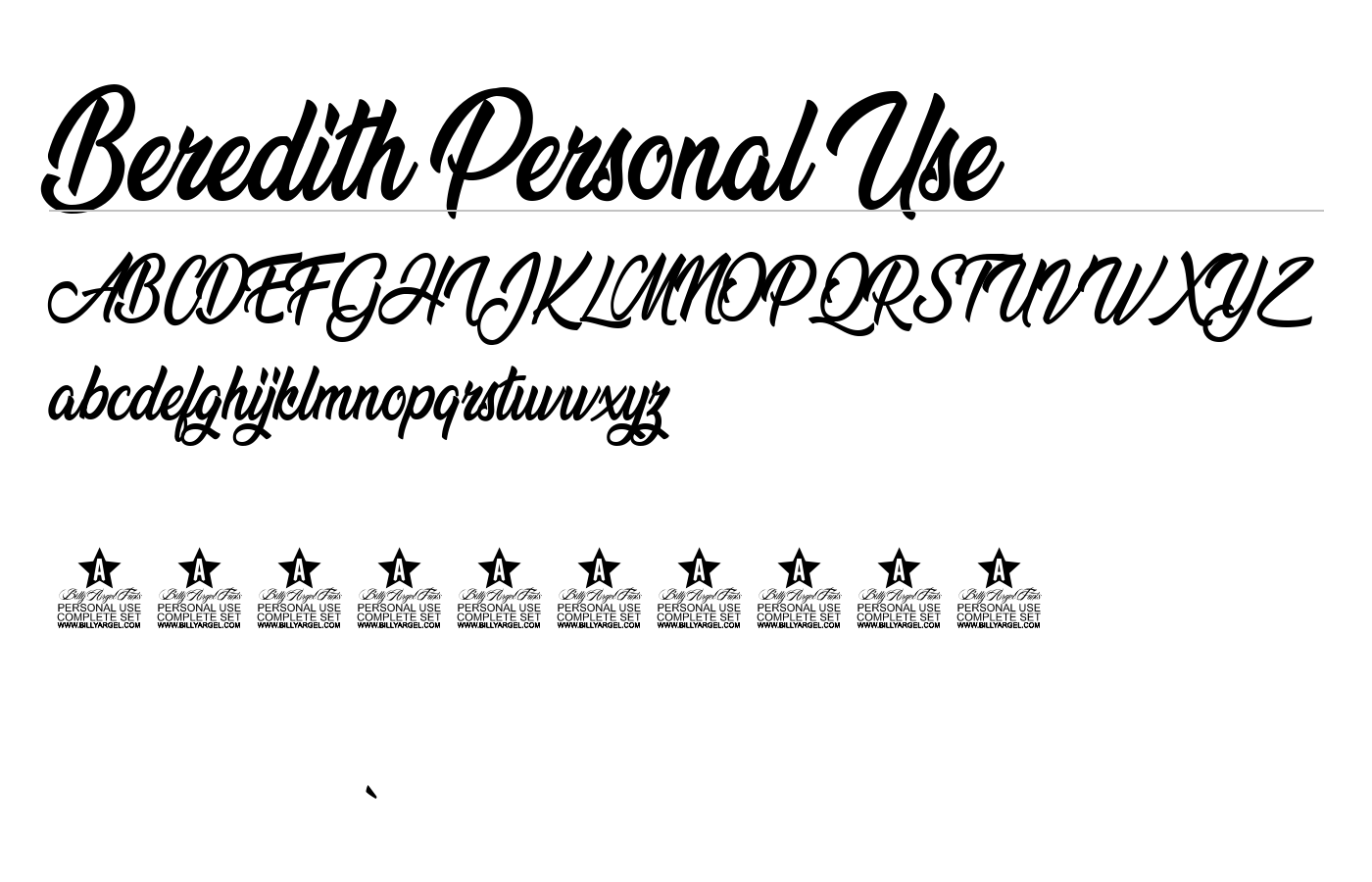
Beredith Personal Use is a stylish script font with a smooth, flowing design that captures a sense of elegance and charm. Its medium weight and moderately high x-height, combined with subtle calligraphic strokes, make it perfect for adding a touch of sophistication to invitations, branding, and headlines. This font works well for projects that need a warm, personal feel while maintaining readability and flair.
Beredith Personal Use Font
About Beredith Personal Use Font